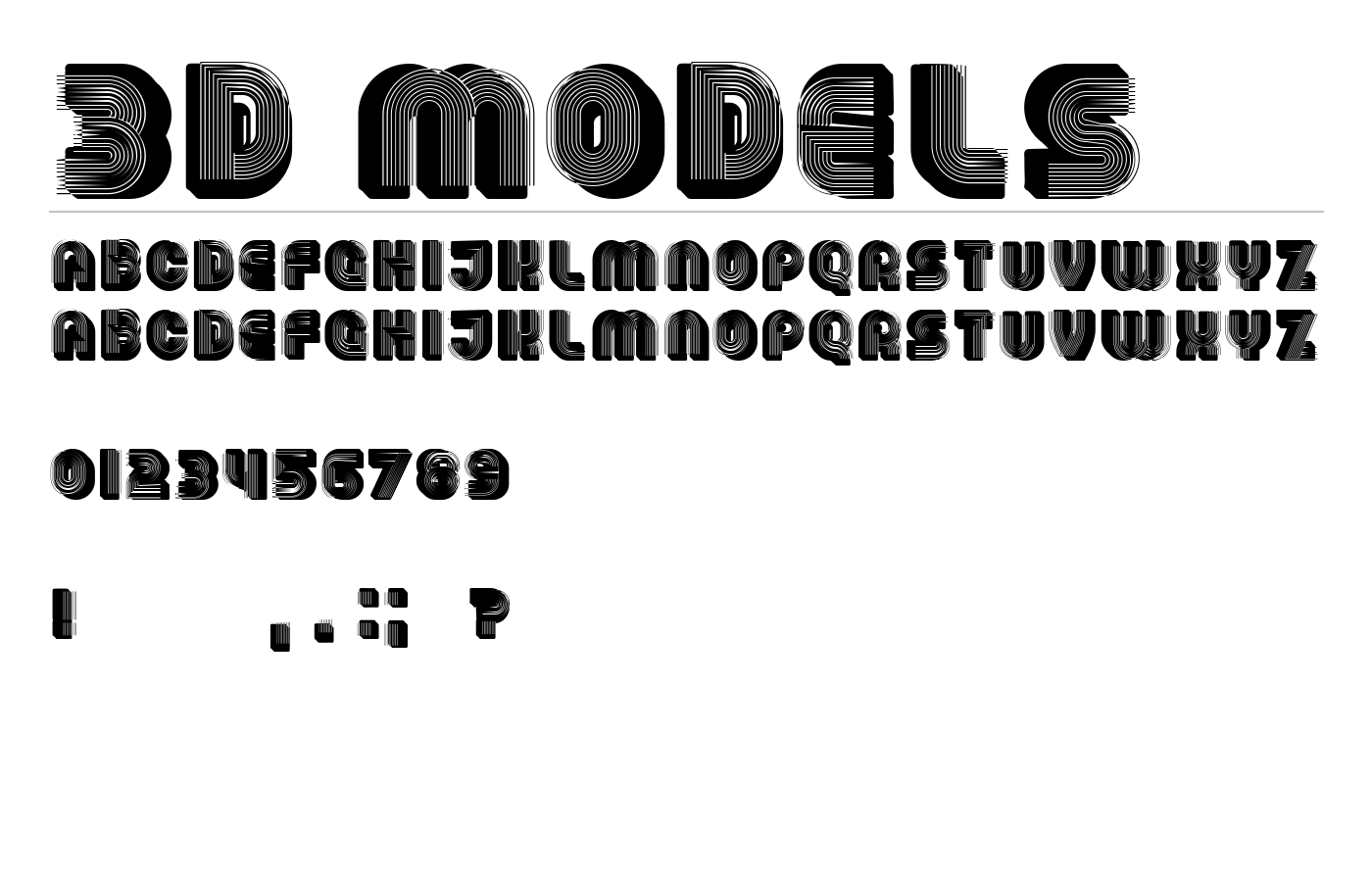
3D Models is a bold, decorative sans serif font featuring a striking 3D layered effect with high contrast lines that create a sense of depth and movement. Its uppercase letters and geometric shapes give it a modern, experimental vibe perfect for eye-catching headlines, posters, and branding that seeks a dynamic, futuristic feel. This font works best where strong visual impact is needed to convey innovation and creativity.
3D Models Font
About 3D Models Font
| Font family | 3D Models Font |